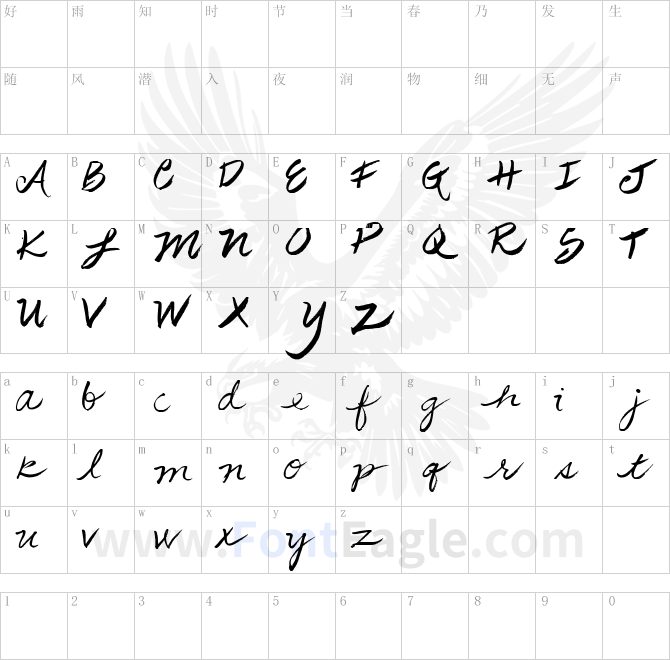
CBX-Feather is a great font, widely used in graphic design, single-page menu design, poster design and other fields, and is deeply loved by designers.CBX-Feather download.